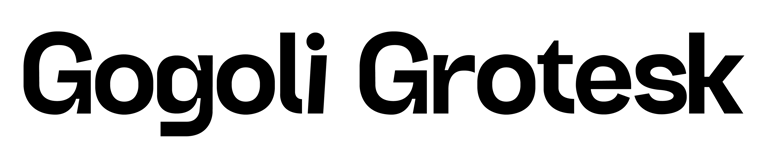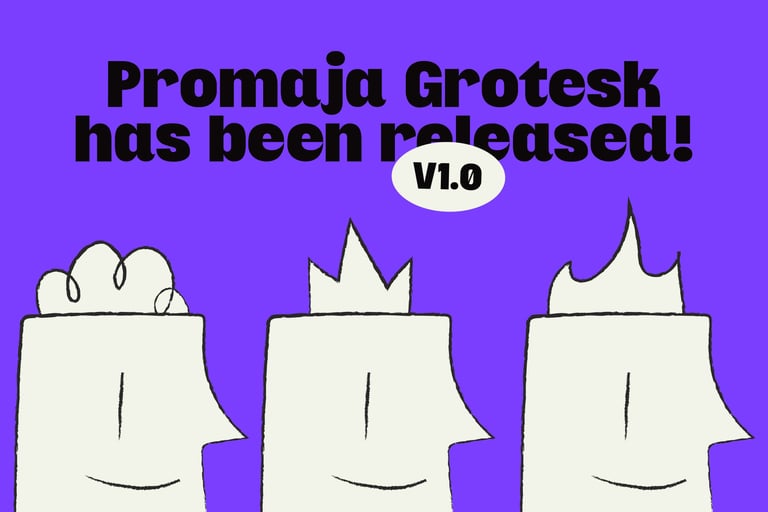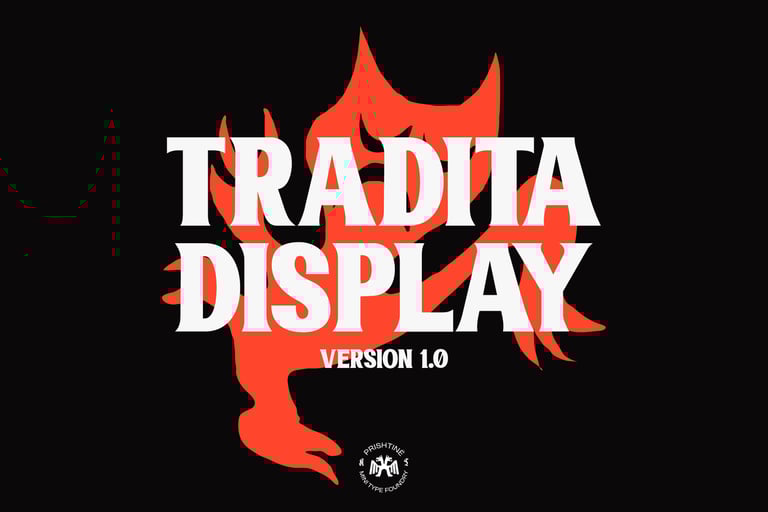
Promaja - Grotesk Typeface
Promaja is a type that we've been working on for the past few months, inspired by irregular forms and mixed in different typographic styles. Something we always love to do and include in our types.
Tradita - Display Typeface
Tradita is a spicy serif inspired by Albanian Heritage and dark gaming typography. Features sharp and twisted corners, a mixture of Tradition, Gaming & Horror.
Digitopia 2.0
The simplified version of Digitopia! Reborn & ready to rumble, we introduce Digitopia Sans 2.0. Our latest curvy type piece.
Gogoli Grotesk 2.0
A reworked version of our infamous Gogoli Grotesk. We've tweaked a lot of things, starting from the glyphs and the curves.
Trafika Sans 1.0
The Sans brother of Trafika Mono. Keeping it classic with a nice & hybrid type. Features experimental letters and sharp turns.
KT Projekt Grotesk
Born out of the need for a simple yet subtly fun grotesk. An old release that we've given a second shot at life. Has quite a lot of inktraps.